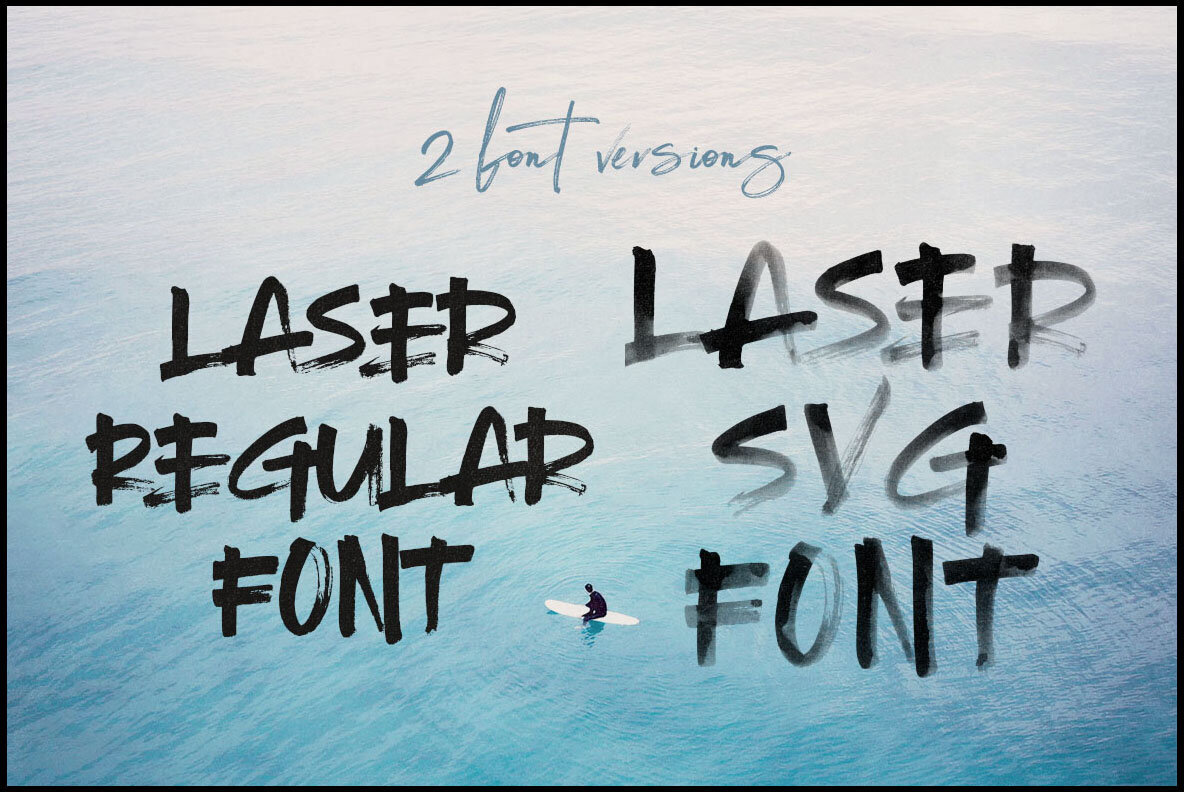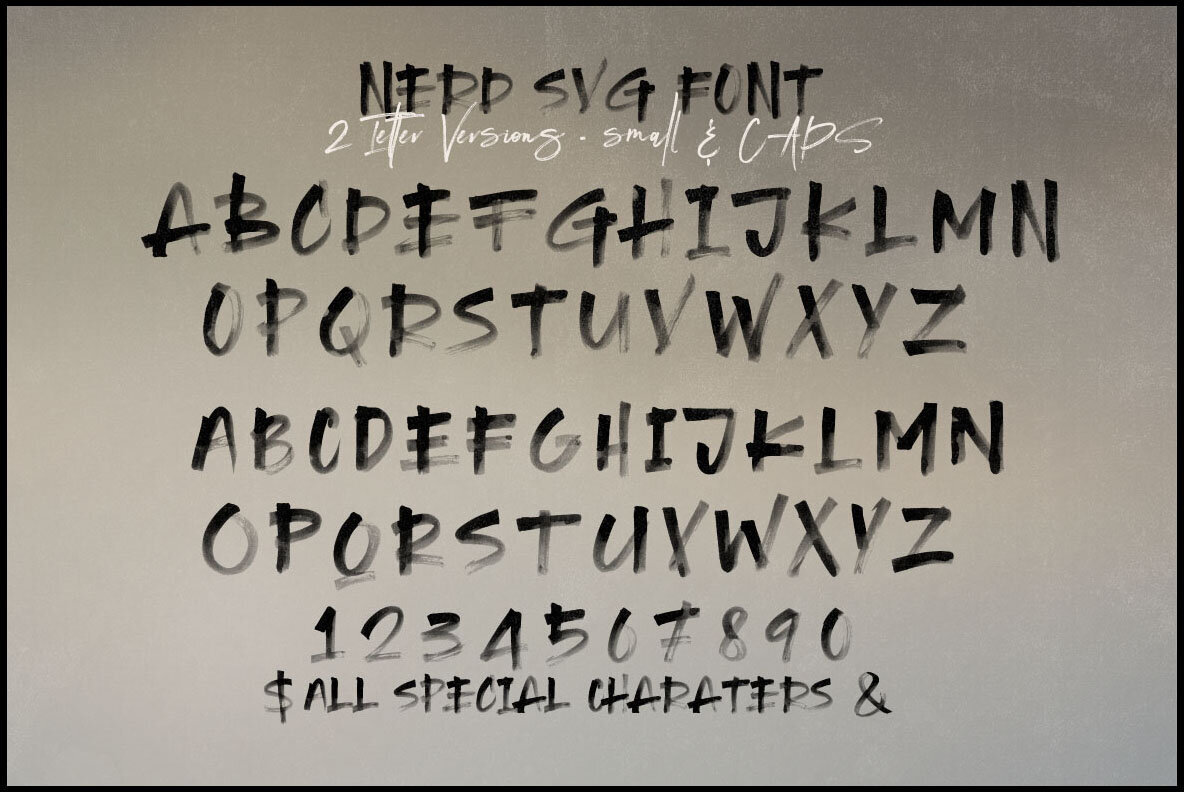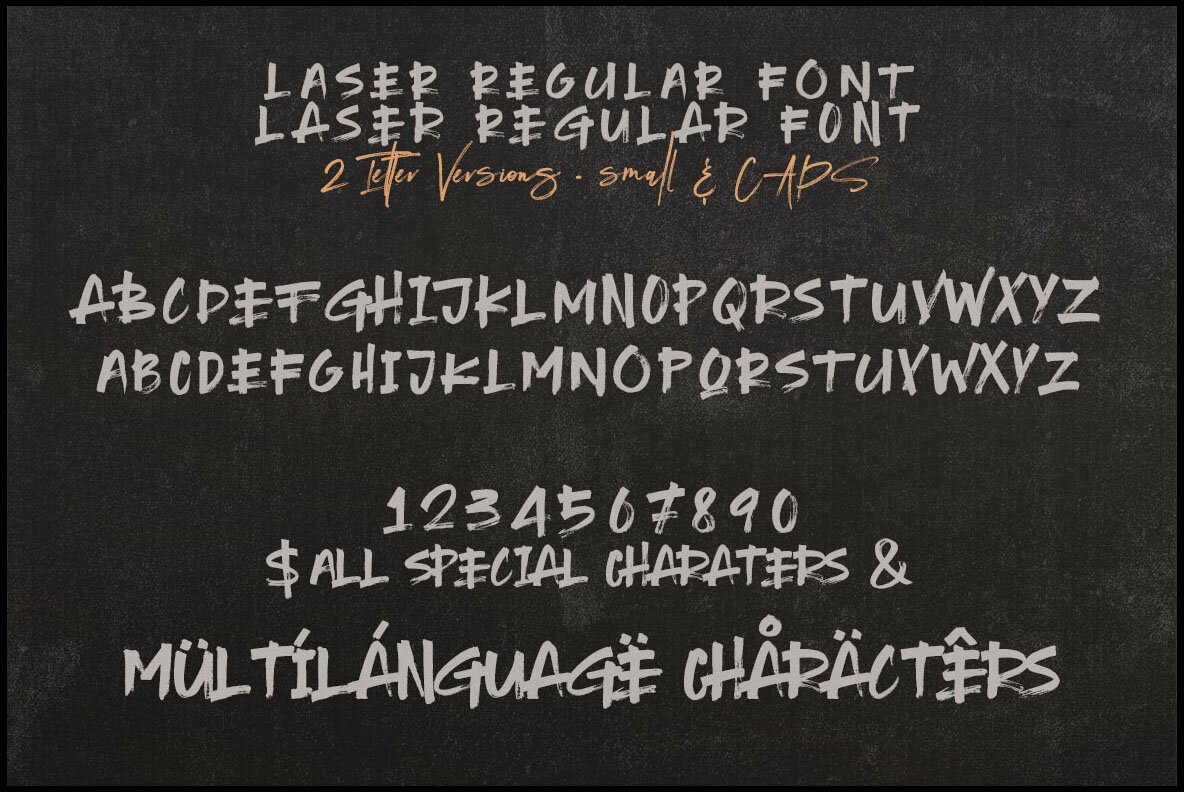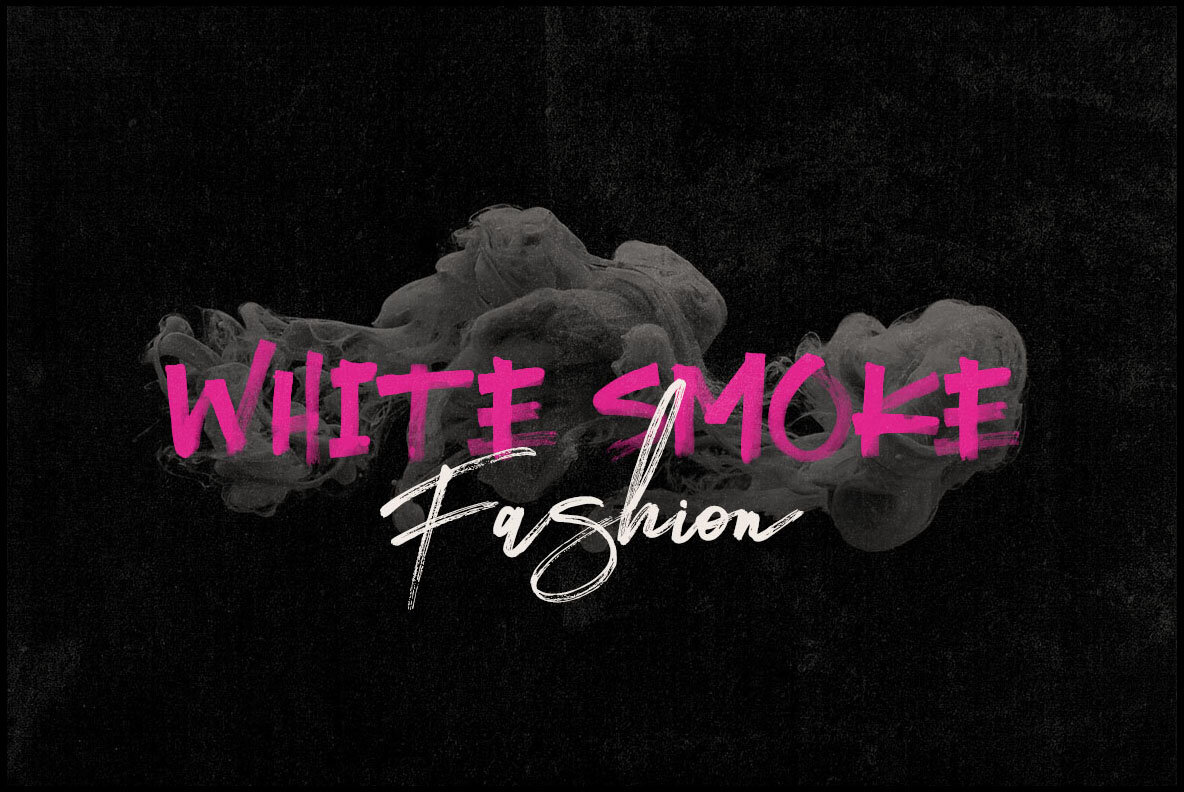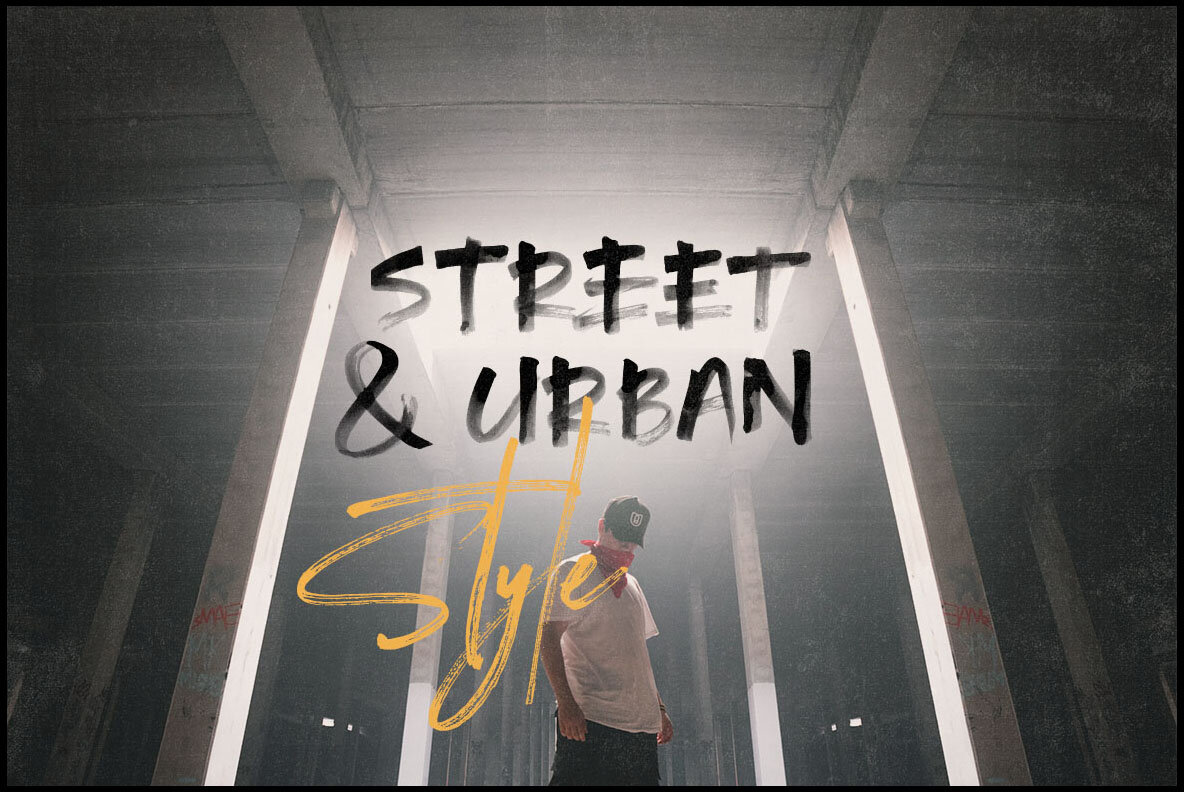
Laser Brush Font
Laser Brush by Peter Olexa is a powerful sans serif display font designed with a brush or grunge aesthetic, ideal for adding a creative edge to your projects. Its rugged style makes it an excellent choice for artistic and grunge-themed designs. This font utilizes modern color or SVG technology and is compatible with specific software versions:Laser Brush: A Bold Grunge Style Sans Font